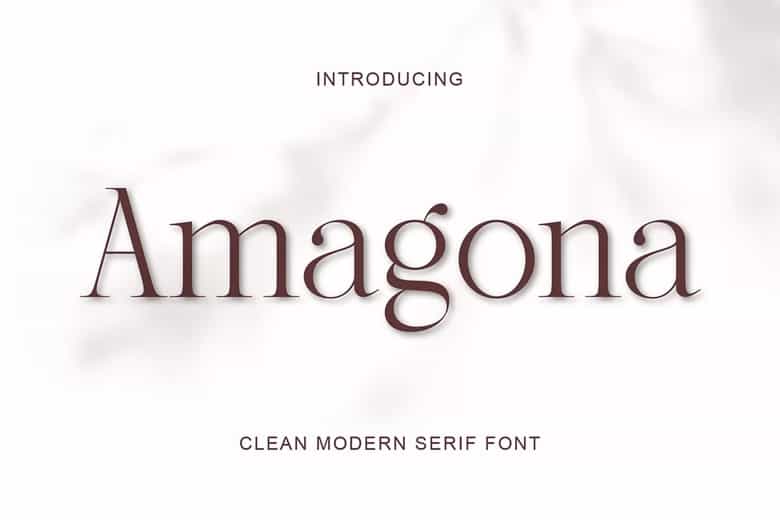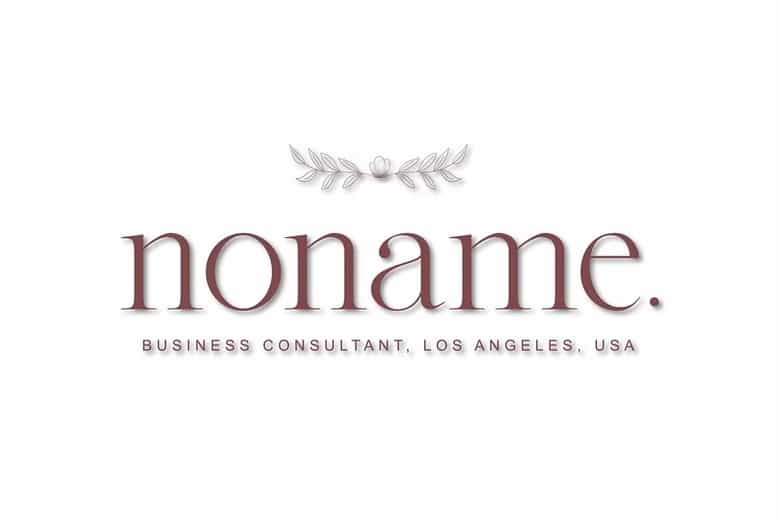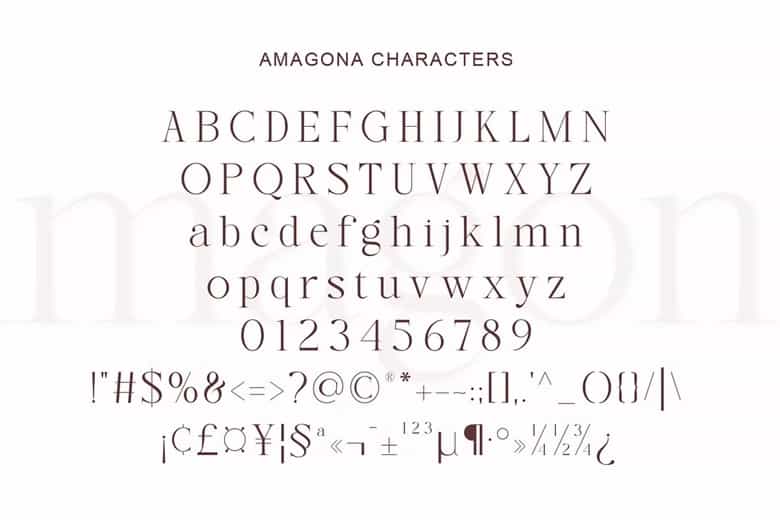
Amagona is a new serif font. Being more of a modern font, Amagona gives a luxurious and classy appeal, and a “clean-cut” look to your projects such as web sites, logos, brandmark, quotes in social media marketing, wedding invitation and stationery designs, magazines and more. This font provides capital letters A to Z with regal stylings in Amagona’s font style, as well as unique substitution and joined characters to make Amagona a specialized font for any difference tasks and works one may intend.